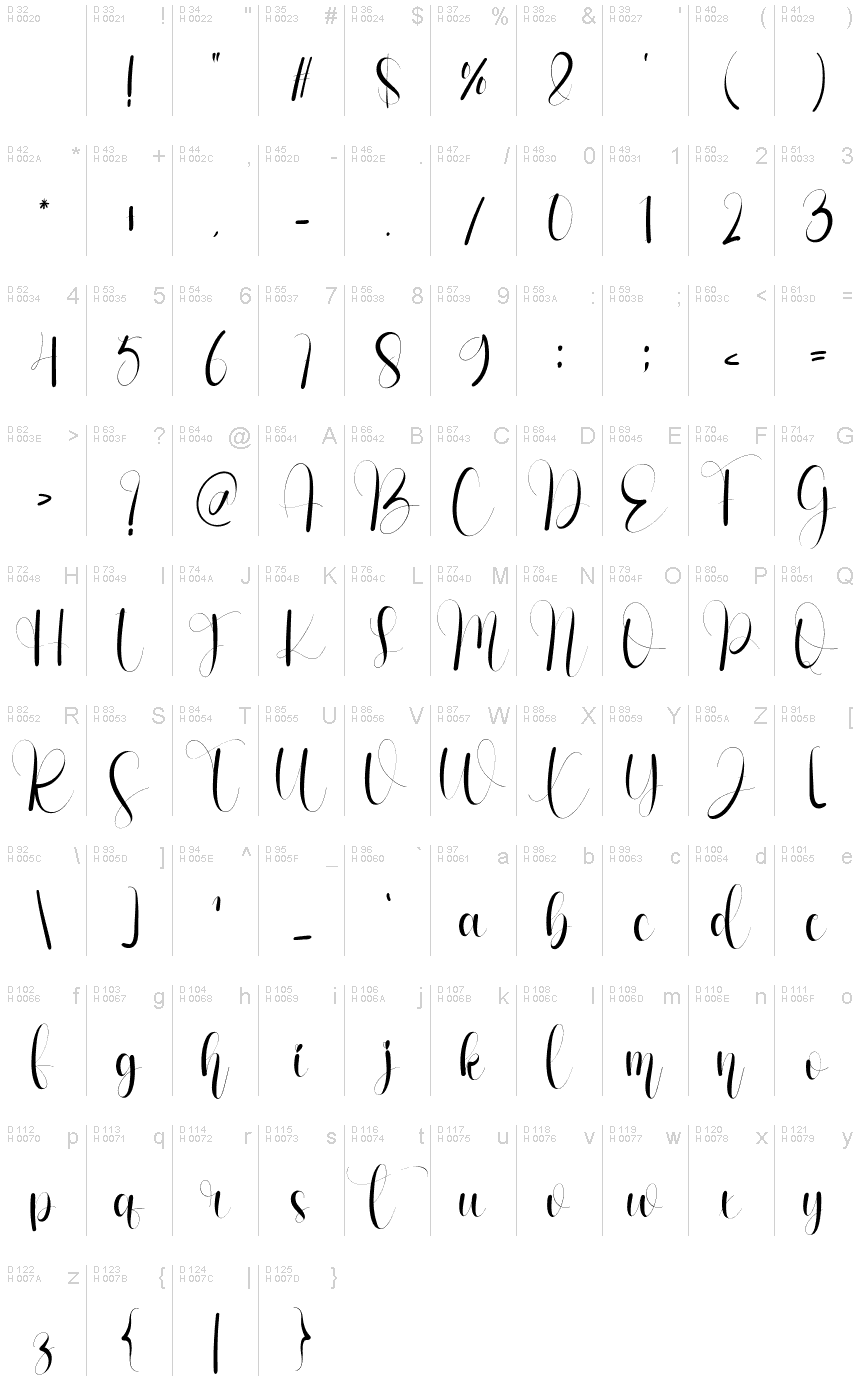
Wedding In Farmhouse
Wedding In Farmhouse font is a calligraphy typeface designed by scratchones.
latest style lettering is perfect for wall hangings, wedding invitations, social media post logos,
advertising, product packaging, product design, label, photography, watermark, invitation, stationery,
and any project that requires taste handwriting.